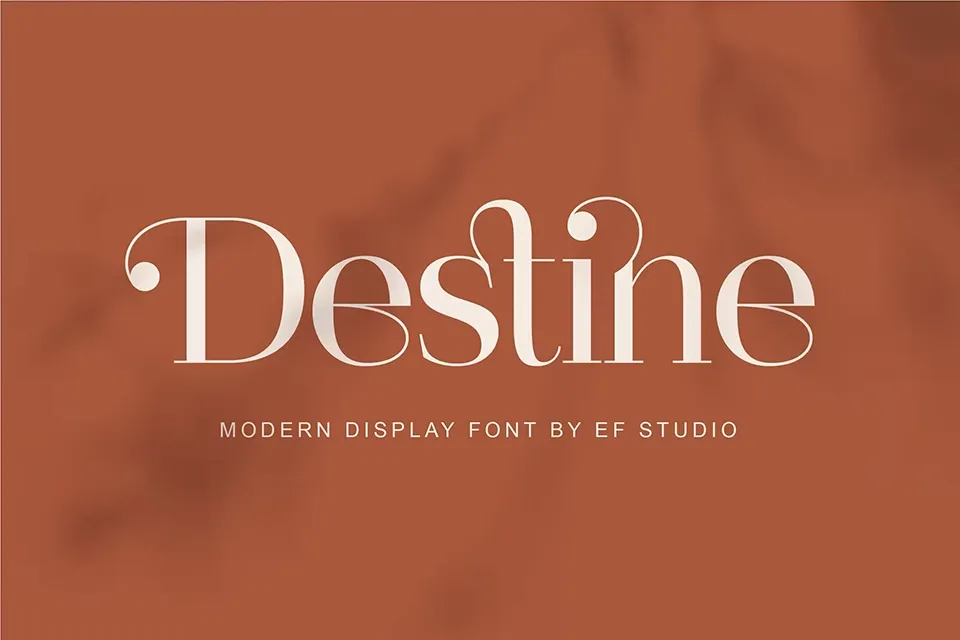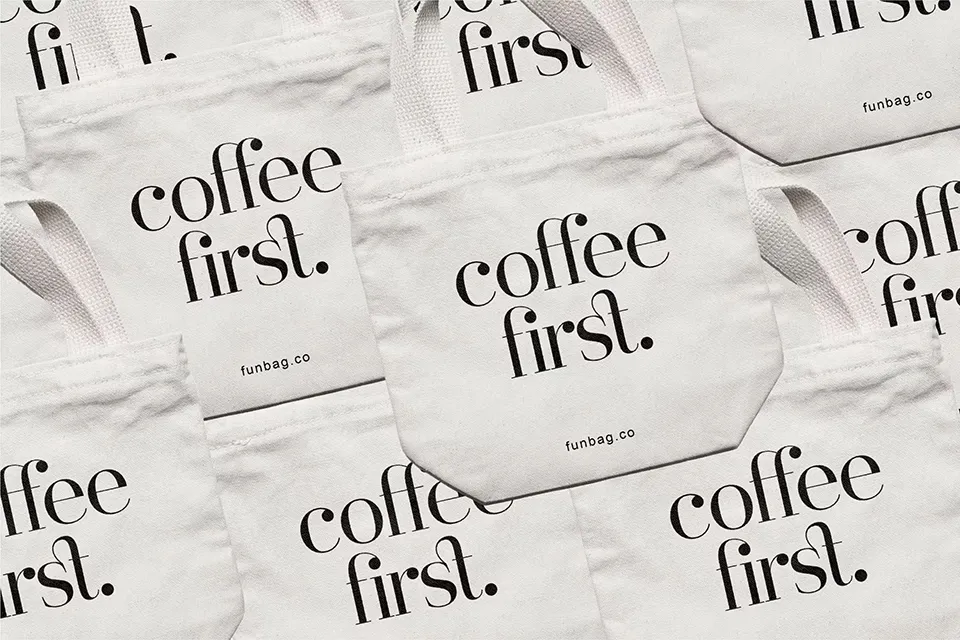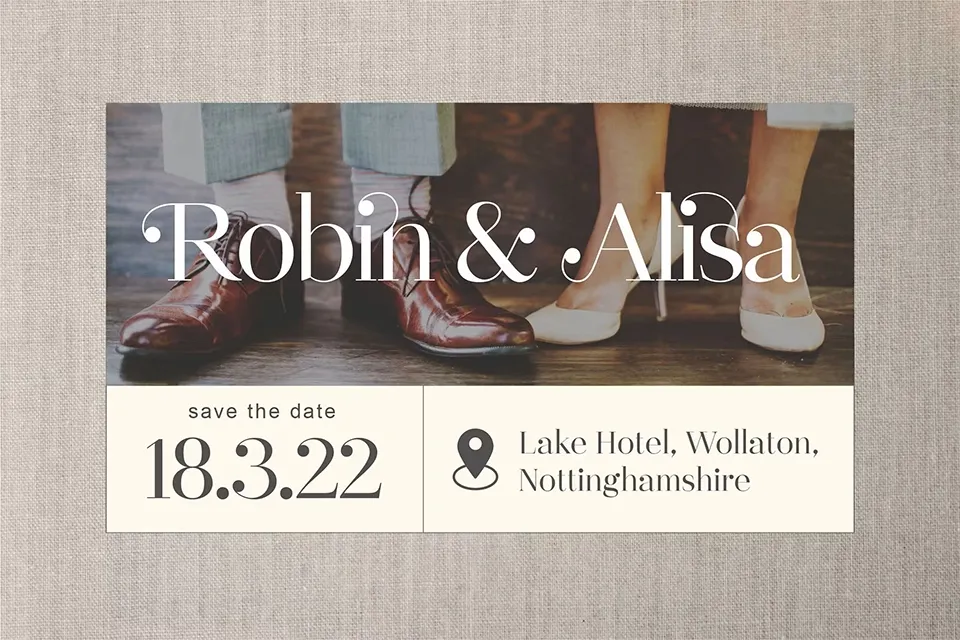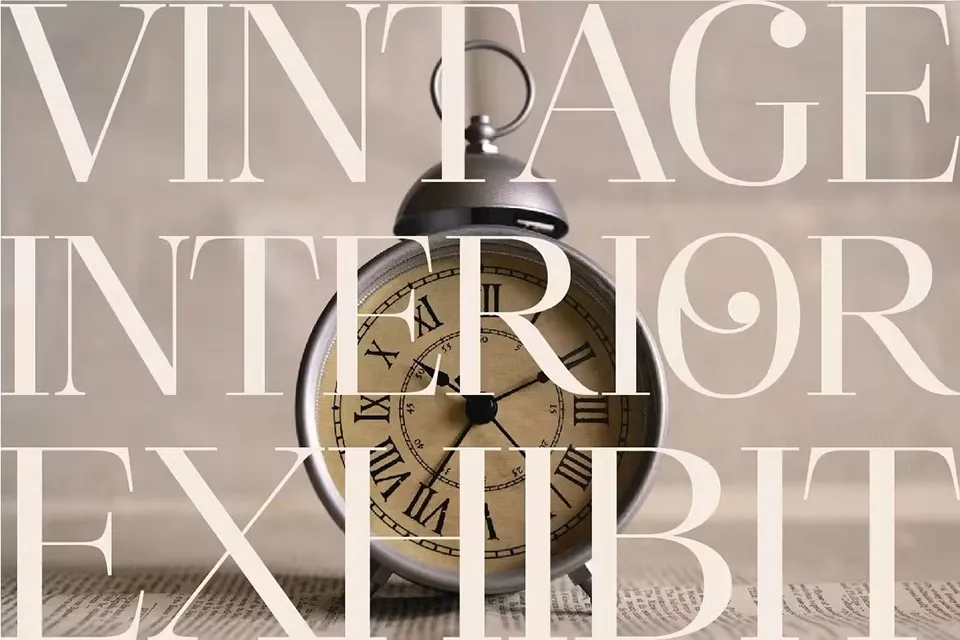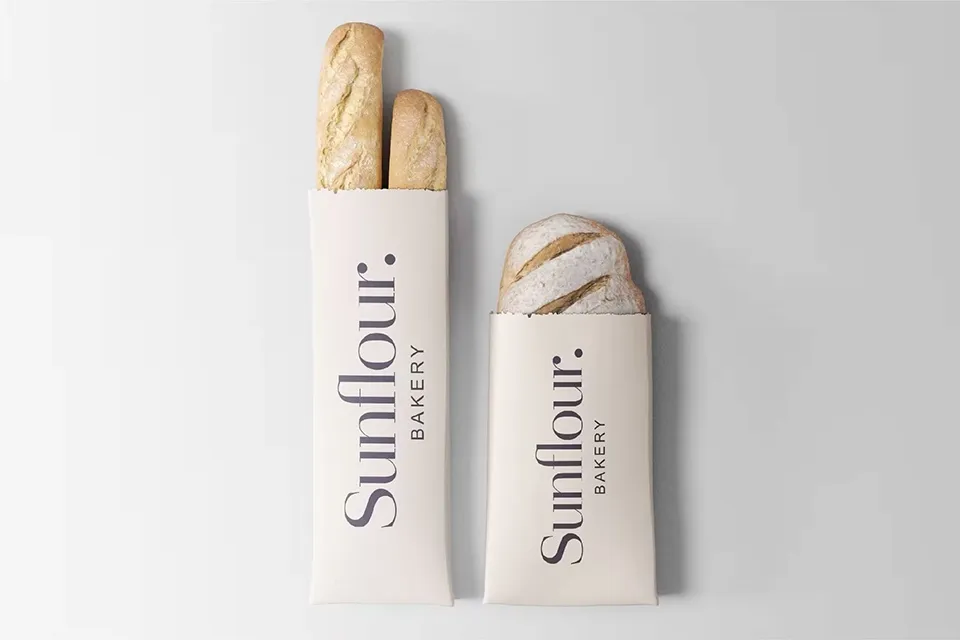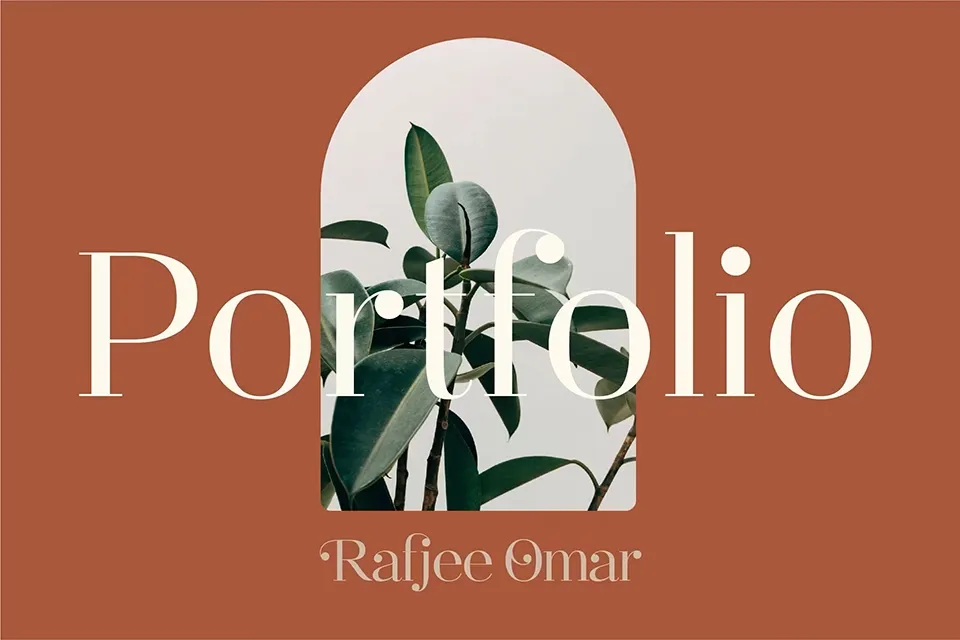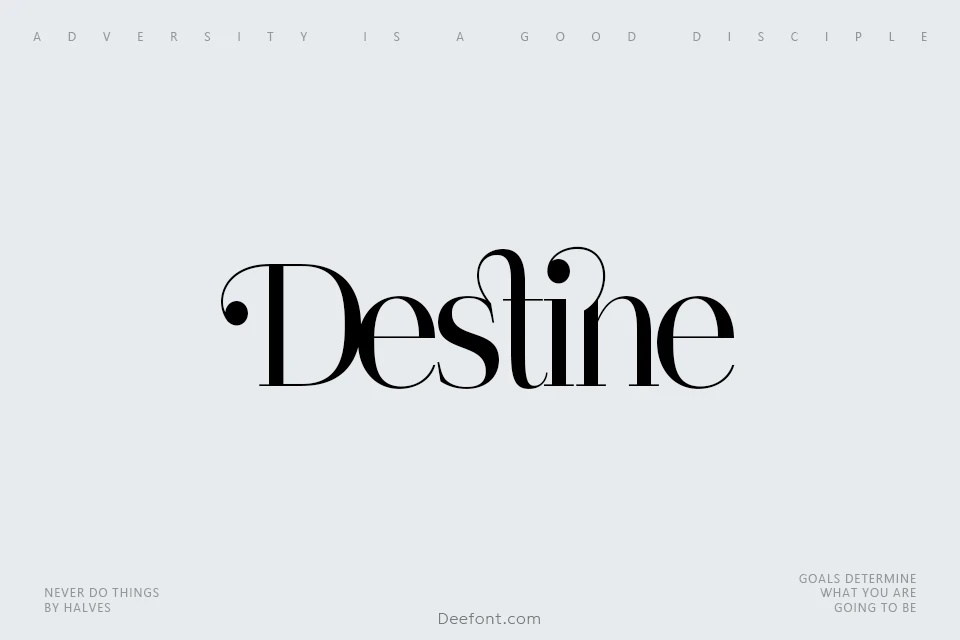
Destine Font
Destine Font is a modern display serif font designed with high contrast and elegant hairline serifs, inspired by classic Didot and Bodoni styles. Its refined curves and sophisticated ligatures make it ideal for luxury branding, editorial headlines, and stylish creative projects.